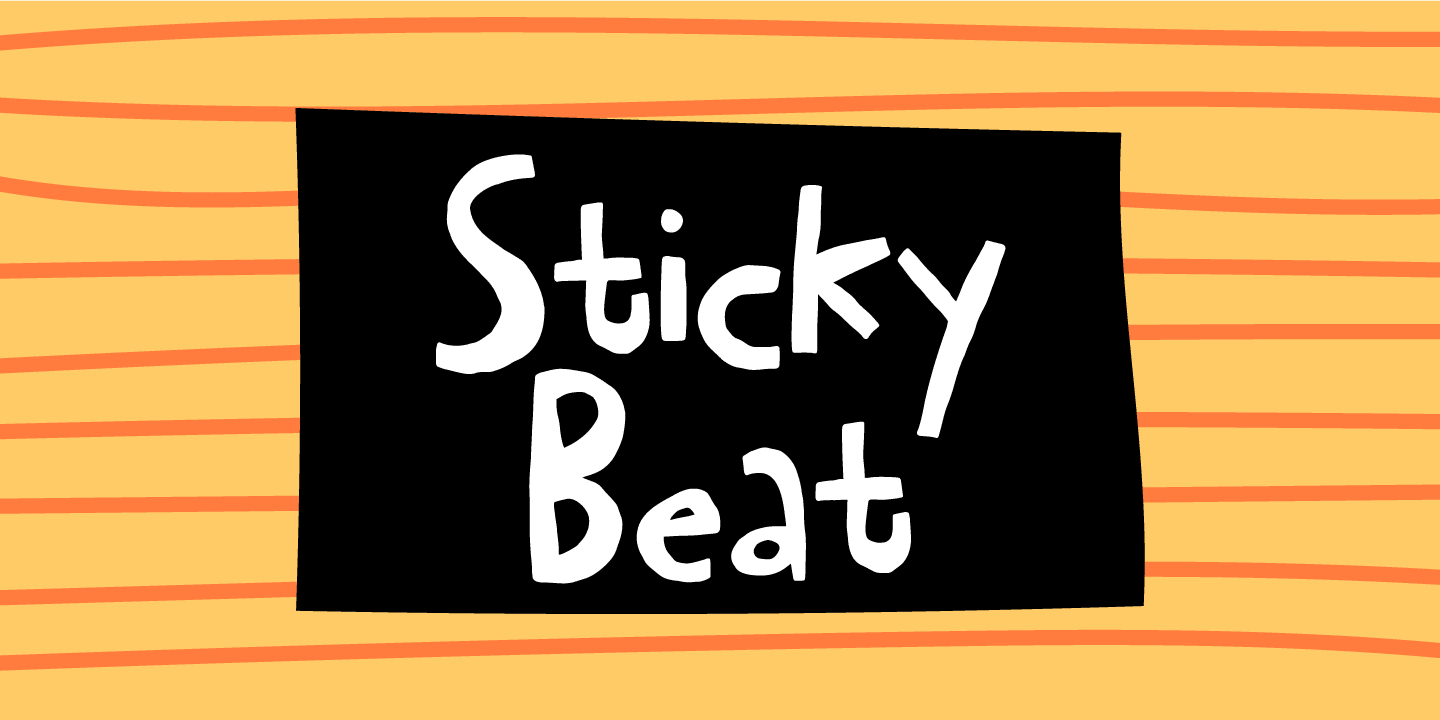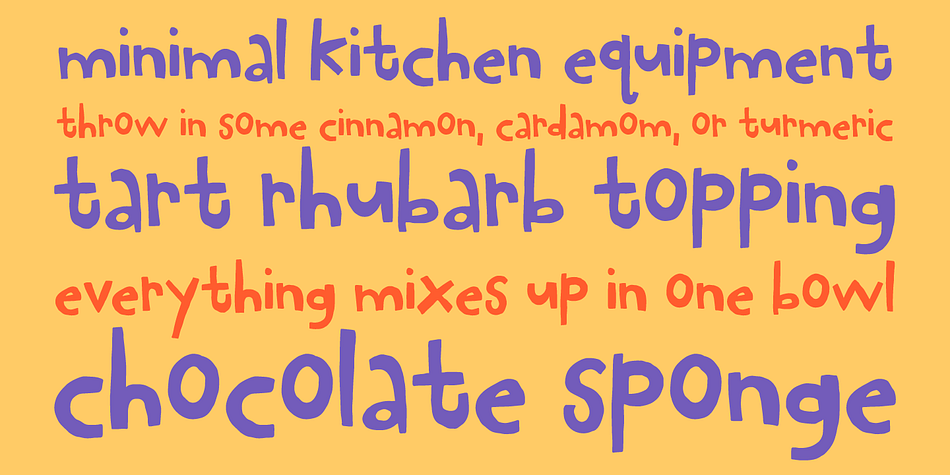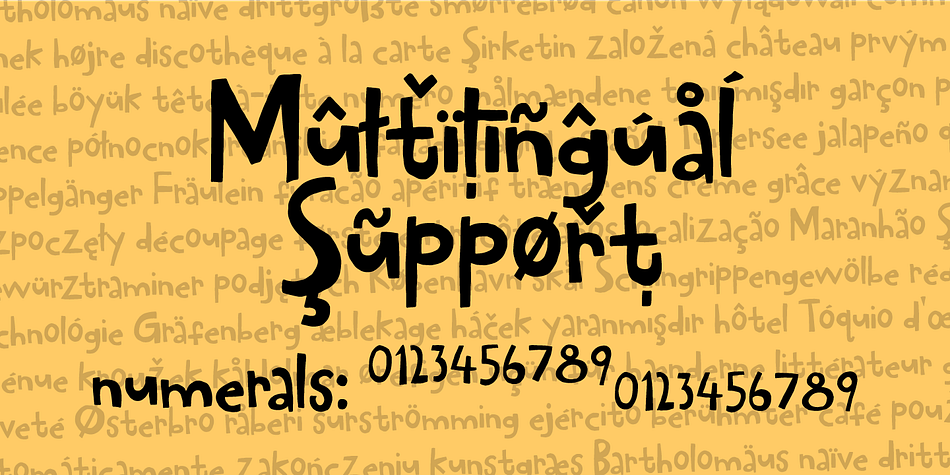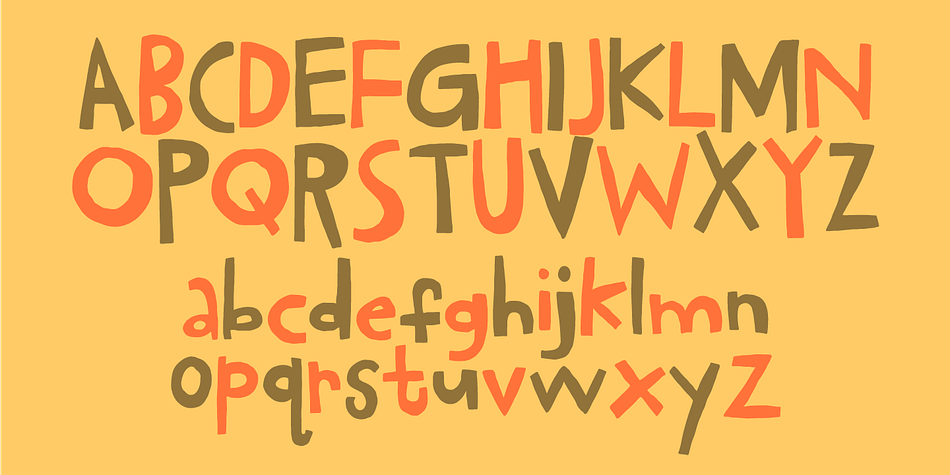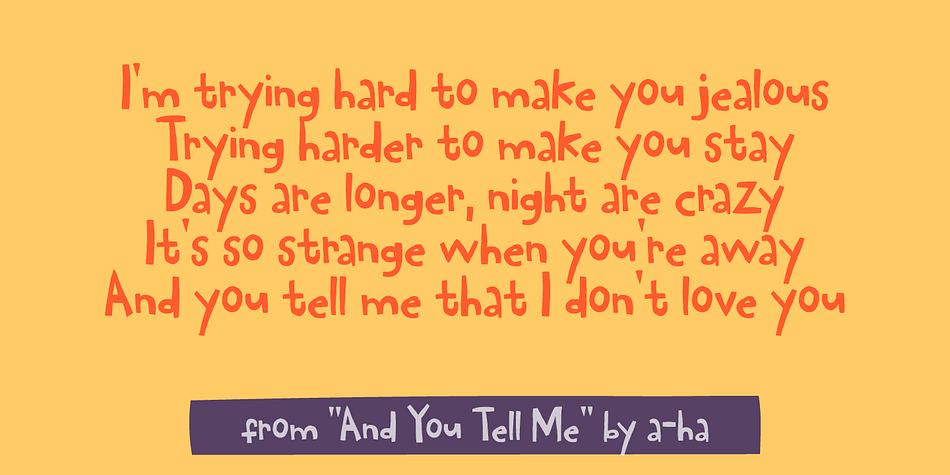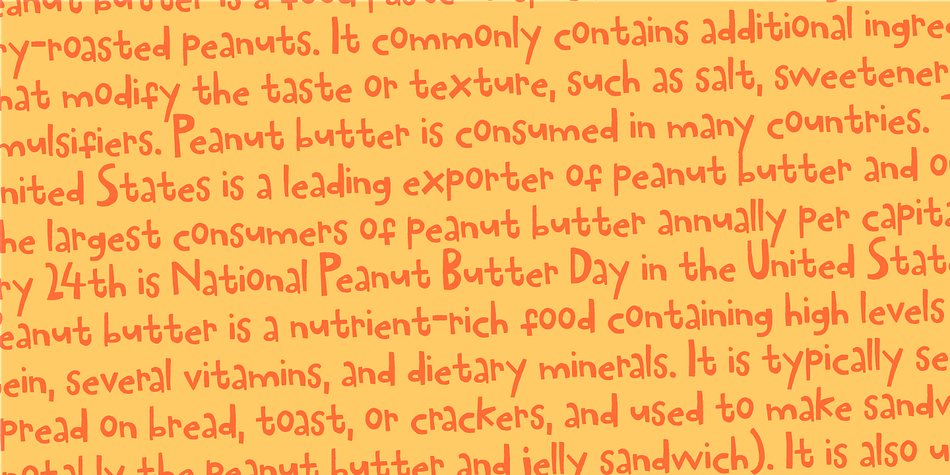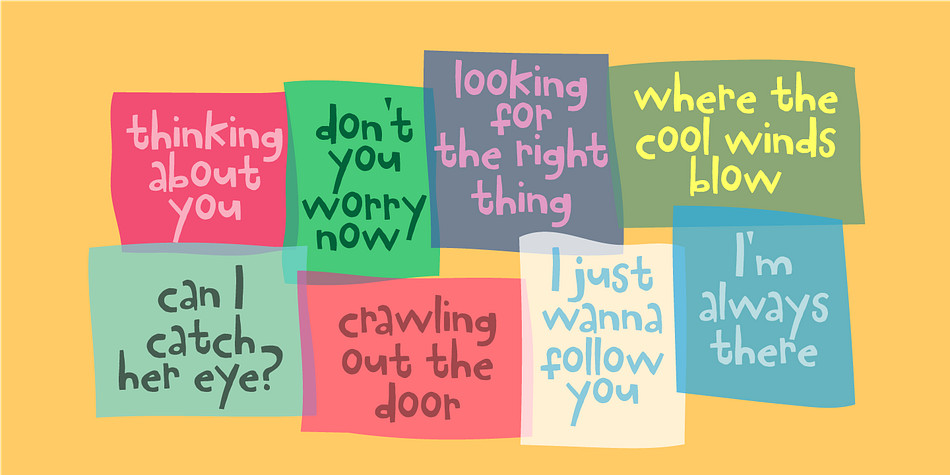
Sticky Beat
Designed by Jakob Fischer, Sticky Beat is a hand drawn and kids font family. This typeface has two styles and was published by Bogstav.
Yes, it’s handmade - and yes, it’s super funky!
Sticky Beat is quite useful for everything that needs a quirky approach, and at the same time not overdoing It.